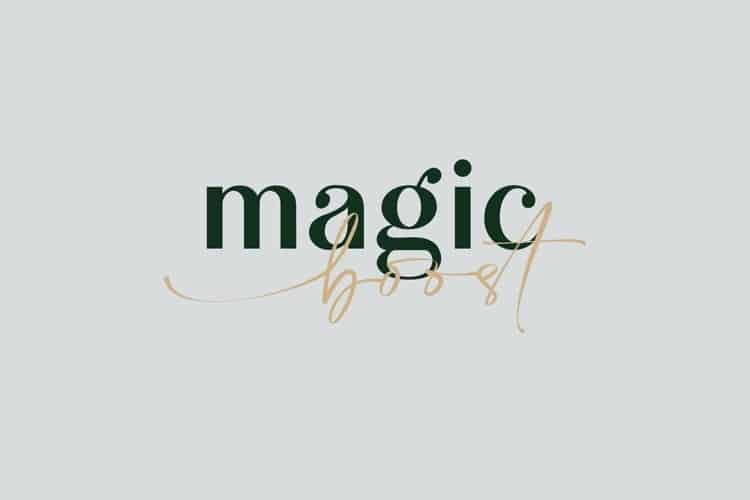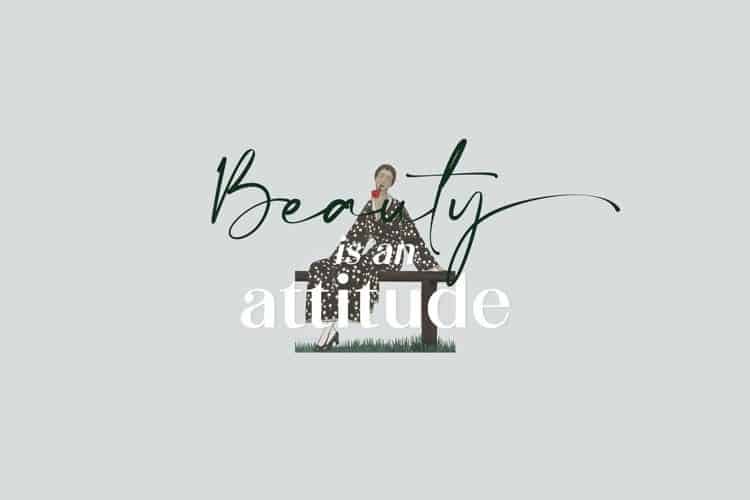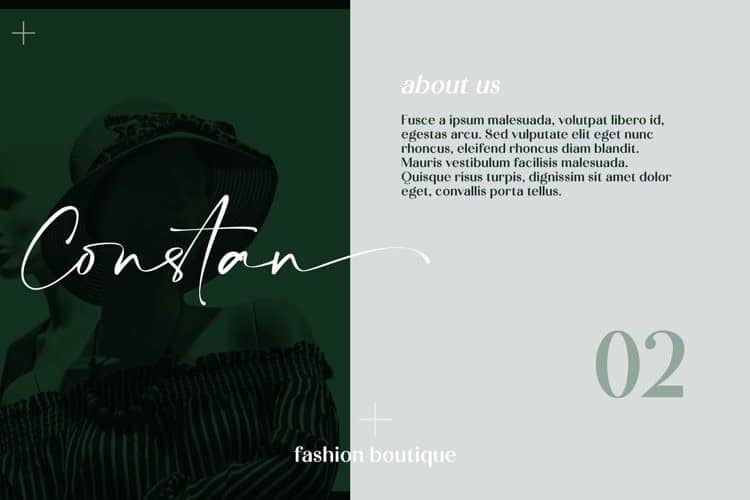
Calton Elegance Font is a luxury font duo. which comes with a combination of modern and elegant fonts. This typeface is a perfect mix modern calligraphy and sans-serif font manufactured by lemonthe. It was created to help you designing makes gorgeous logos, posters, wedding invitations, blog posts, social media, and more!
Calton Elegance Script
Calton Elegance Sans-Regular
Calton Elegance Sans-Italic